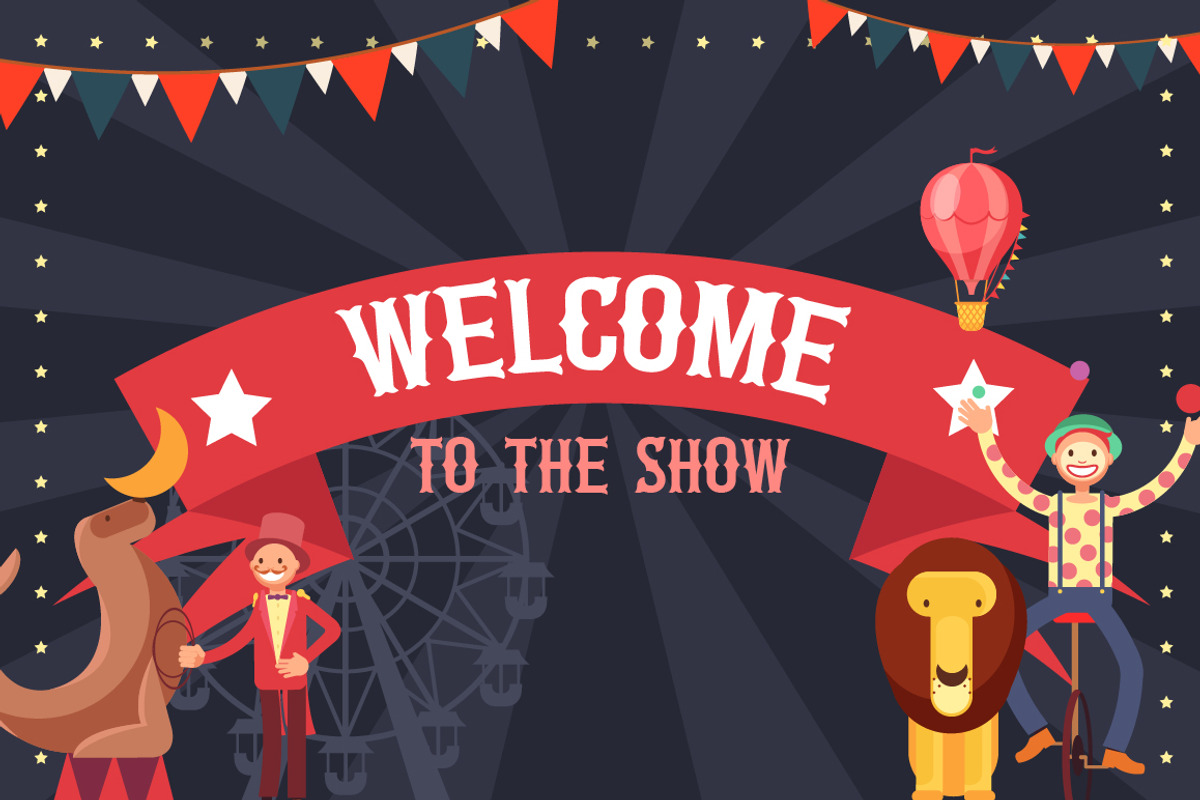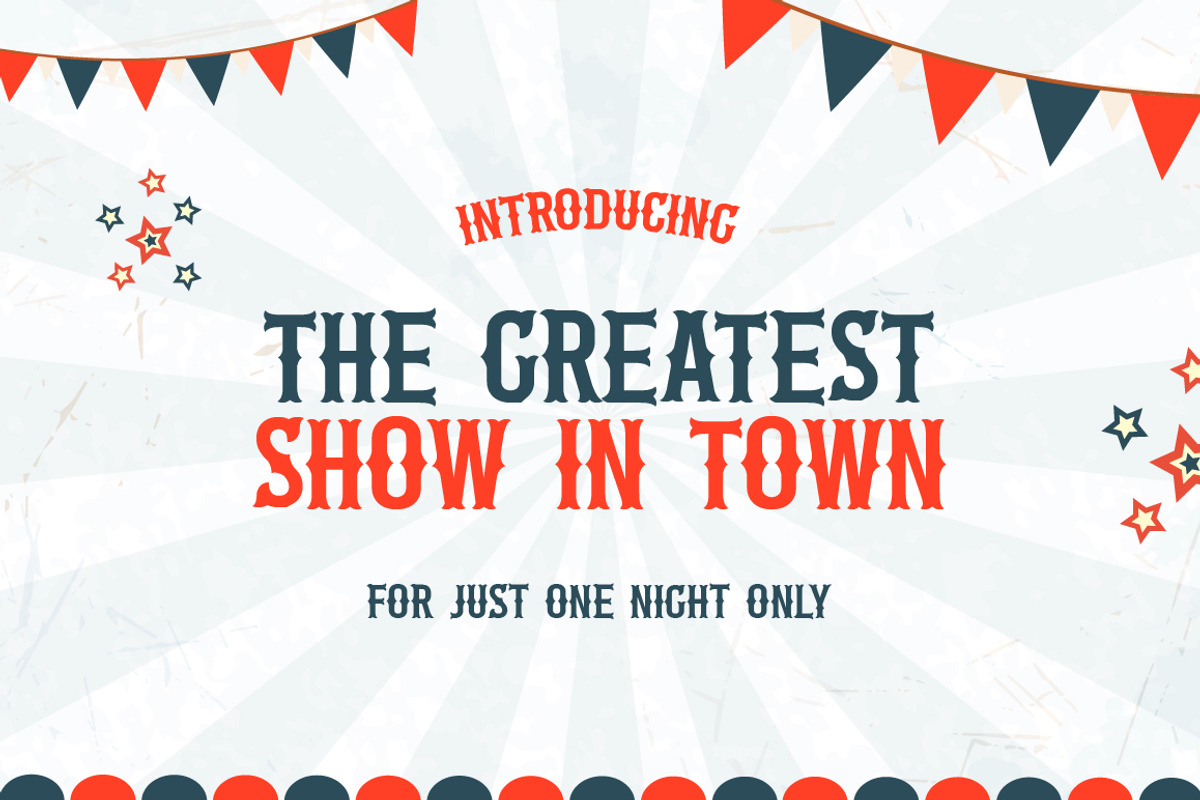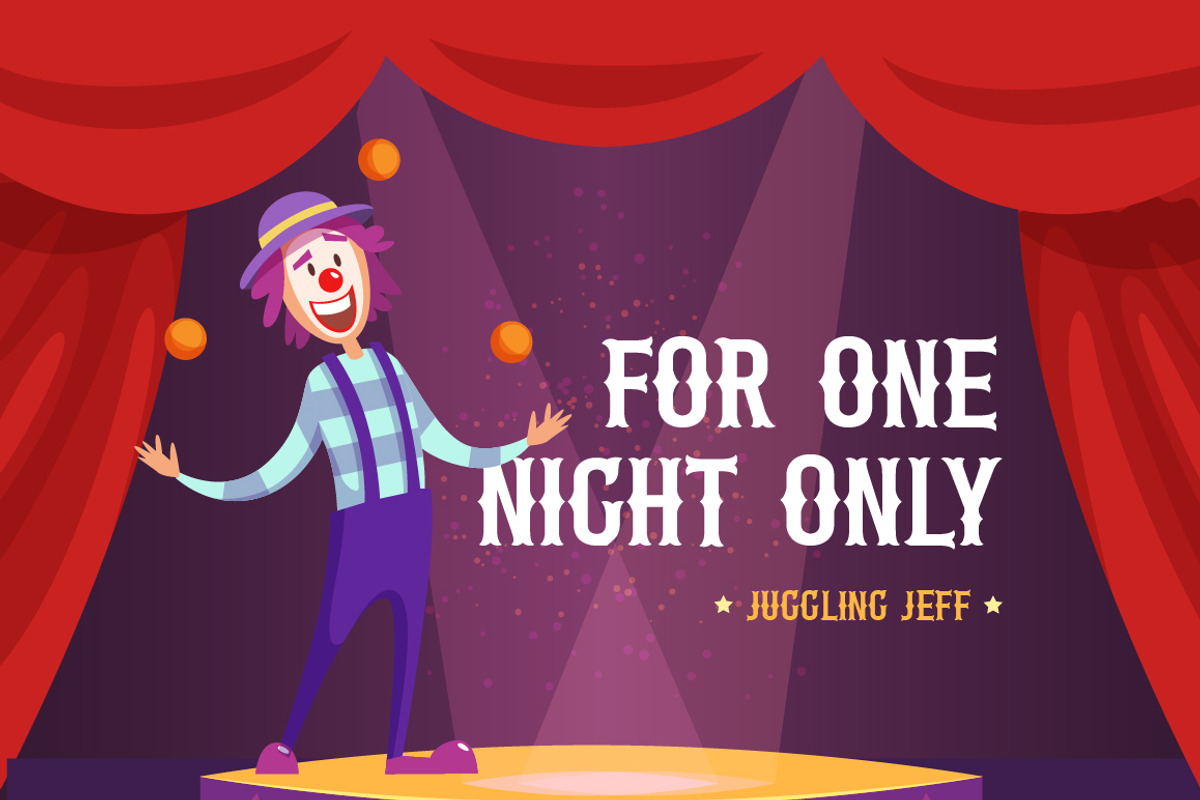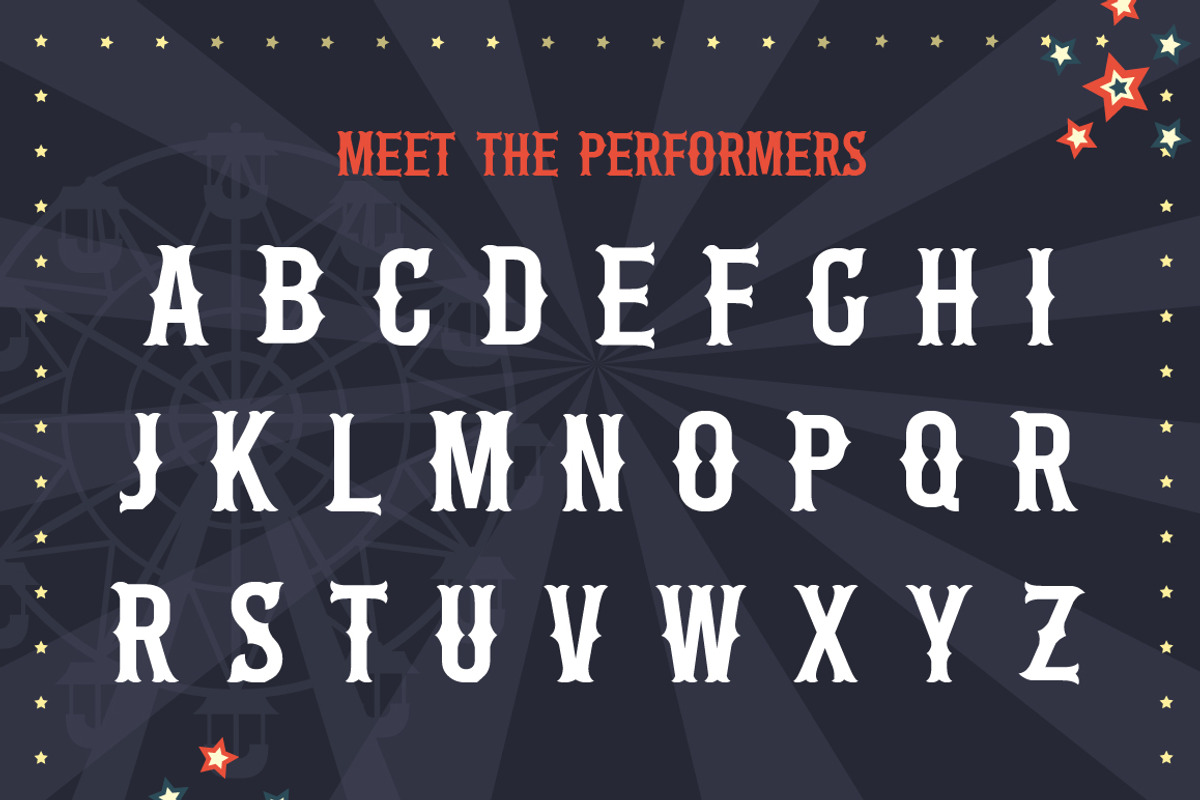
The Circus Font
Welcome to the circus! Where all of the performers are happy to help with all of your design needs and with their quirky kicks and flicks, you’ll love them! Download now and use across a wide range of your work!
Why The Circus Font is worth a look
The Circus Font by Salt & Pepper Designs fits naturally into Branding, posters, packaging, typography.